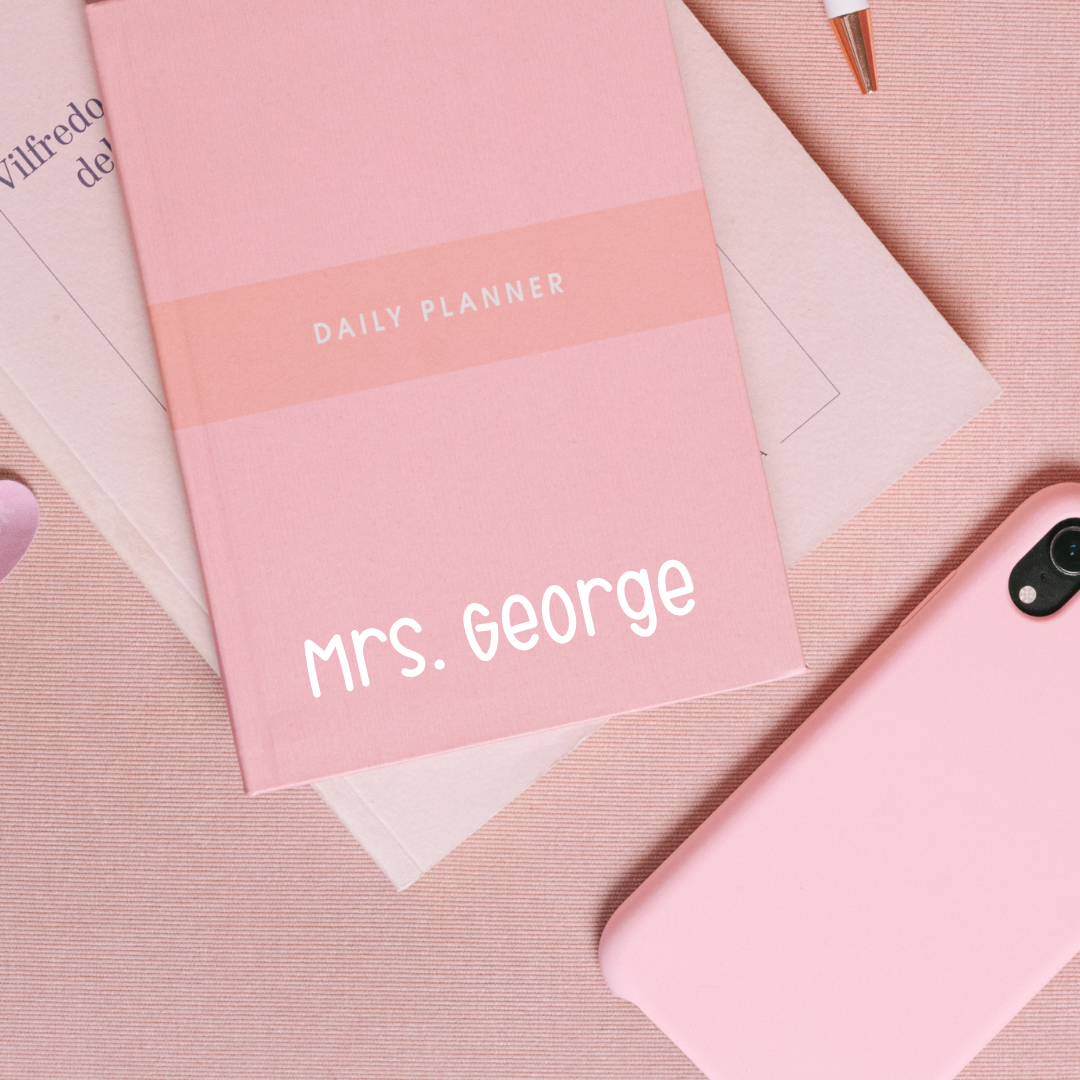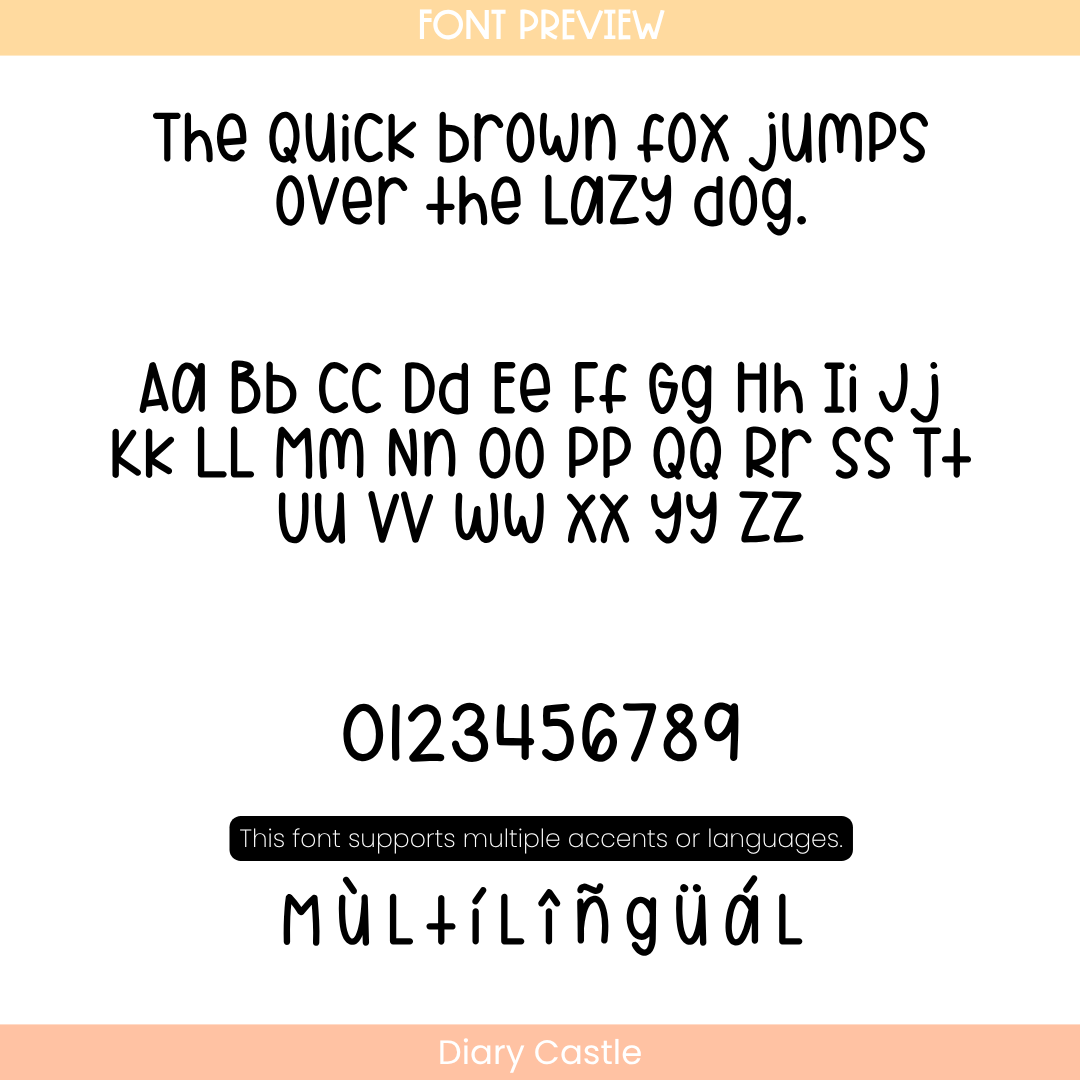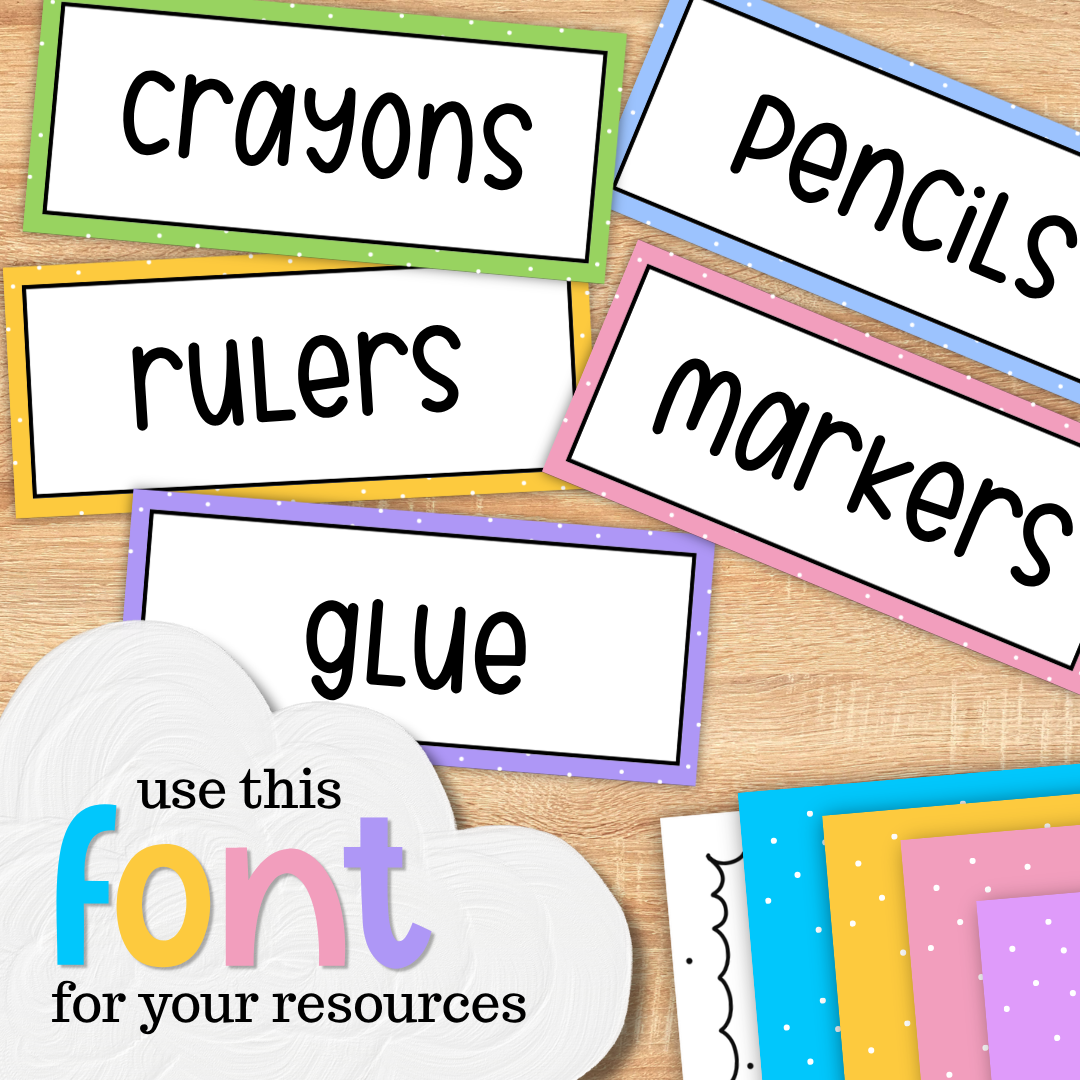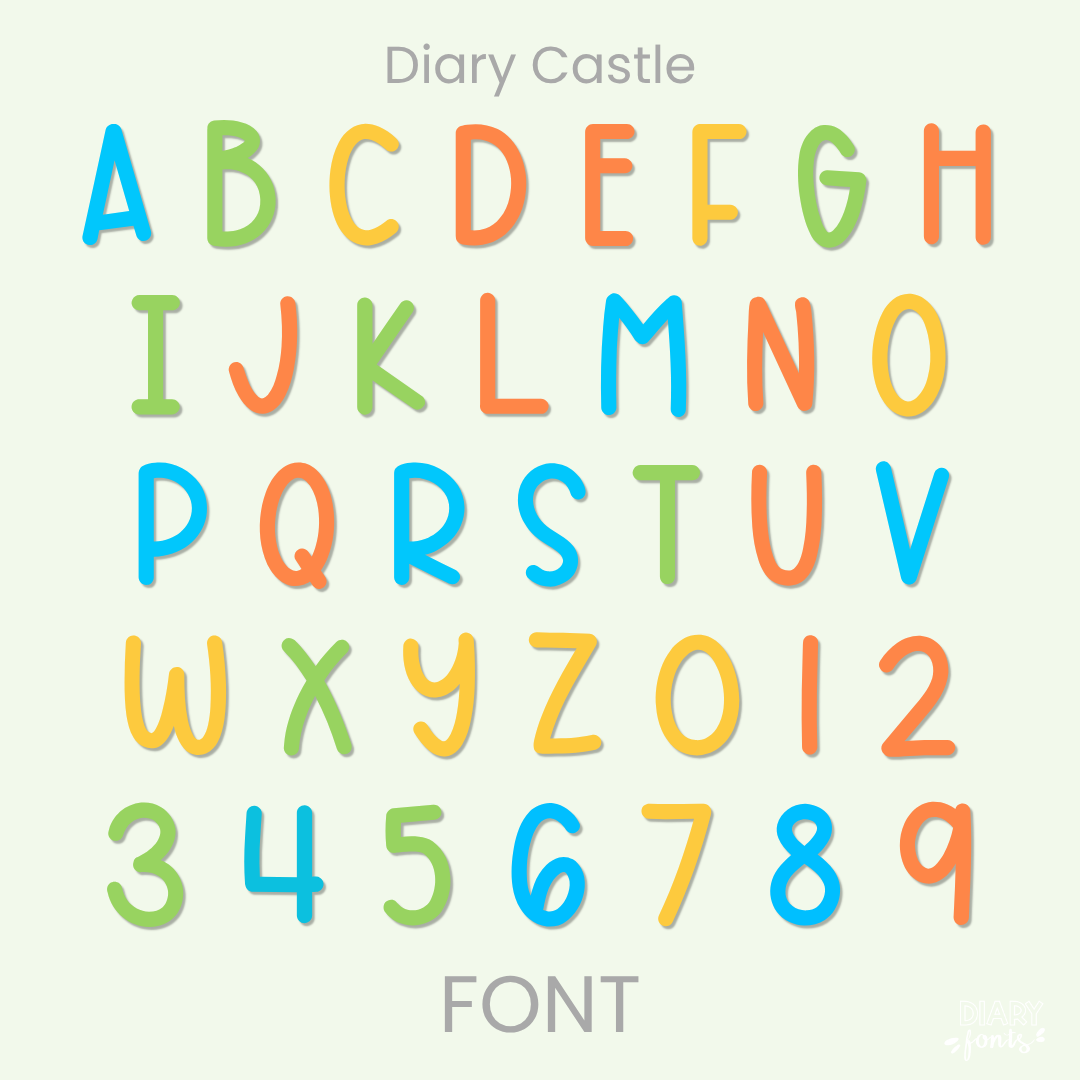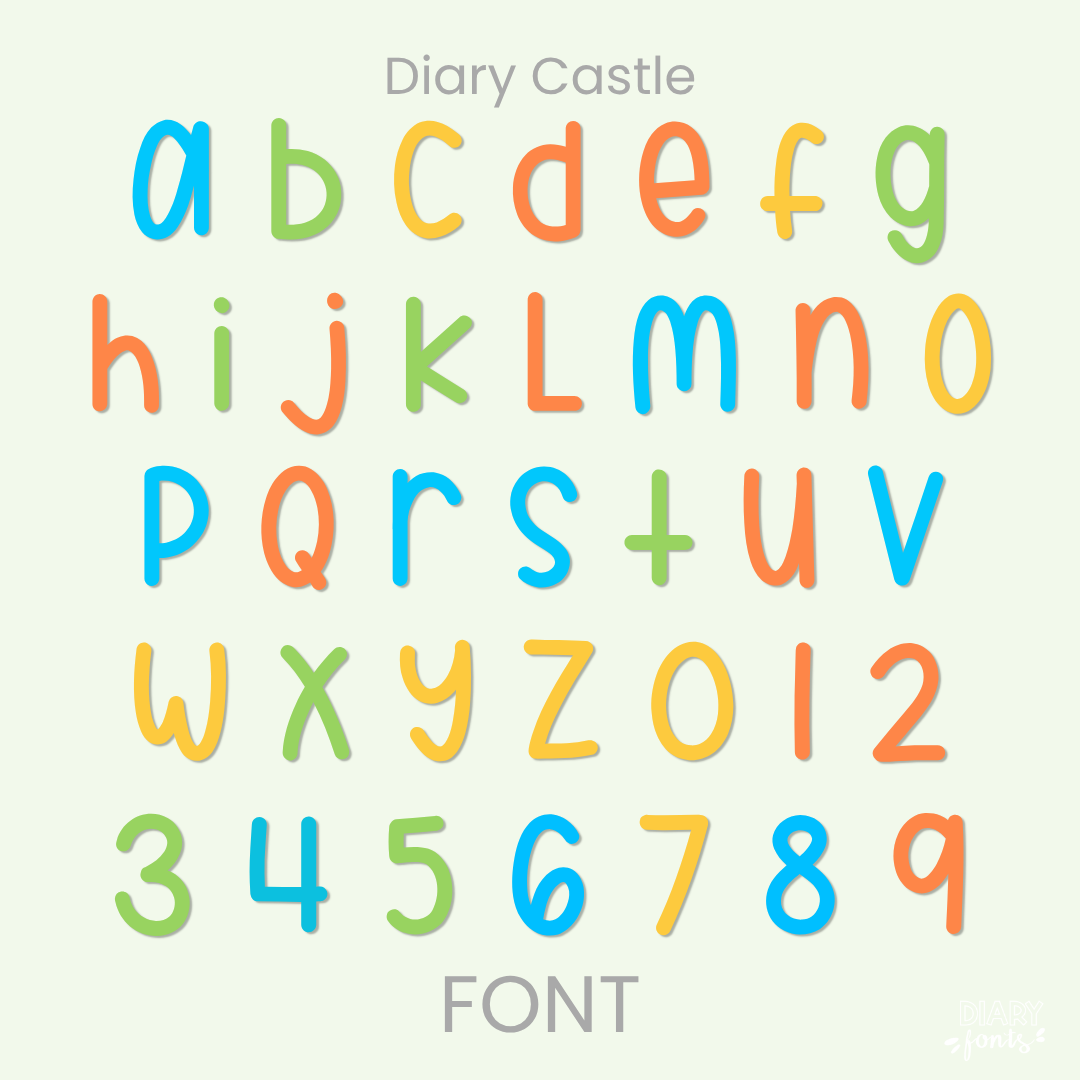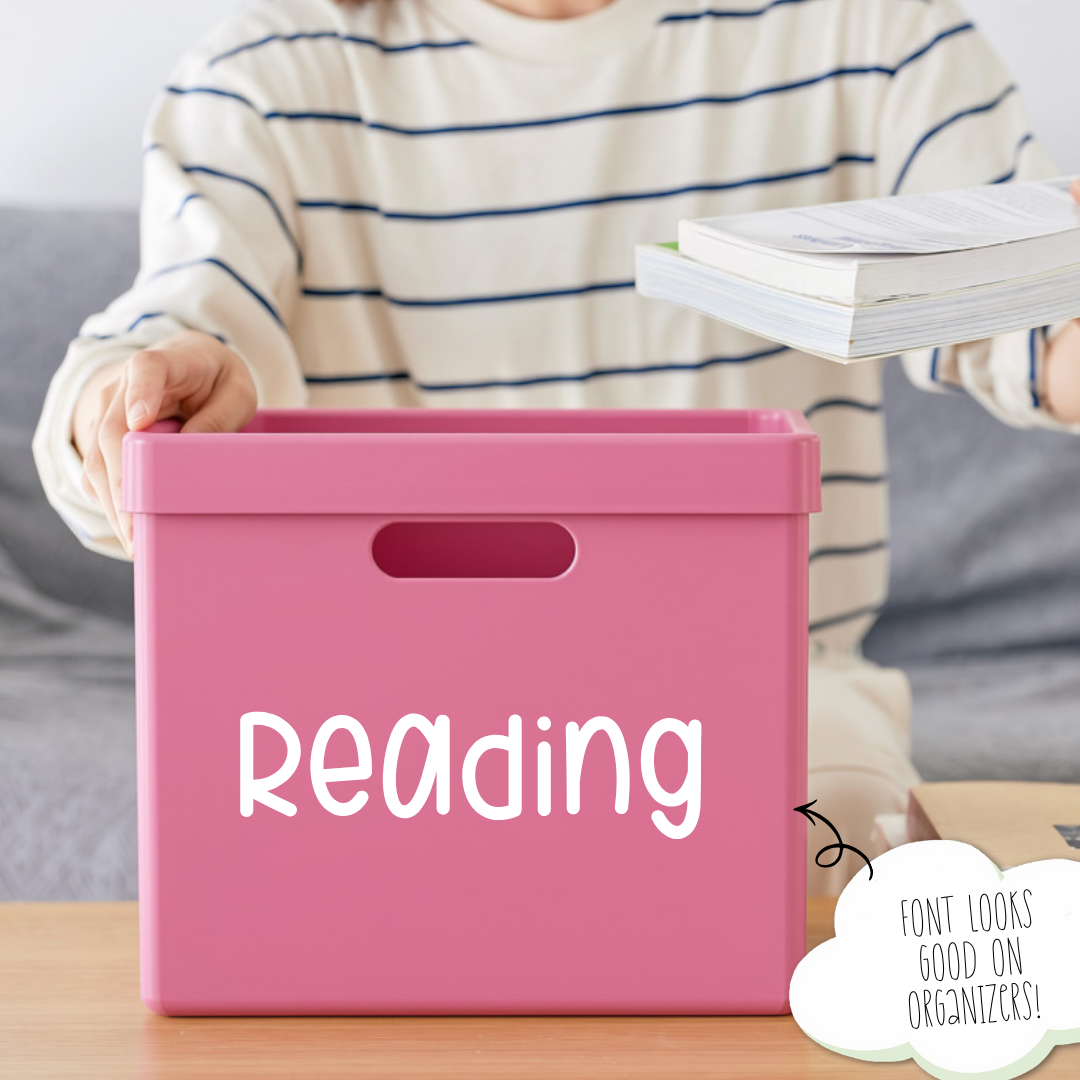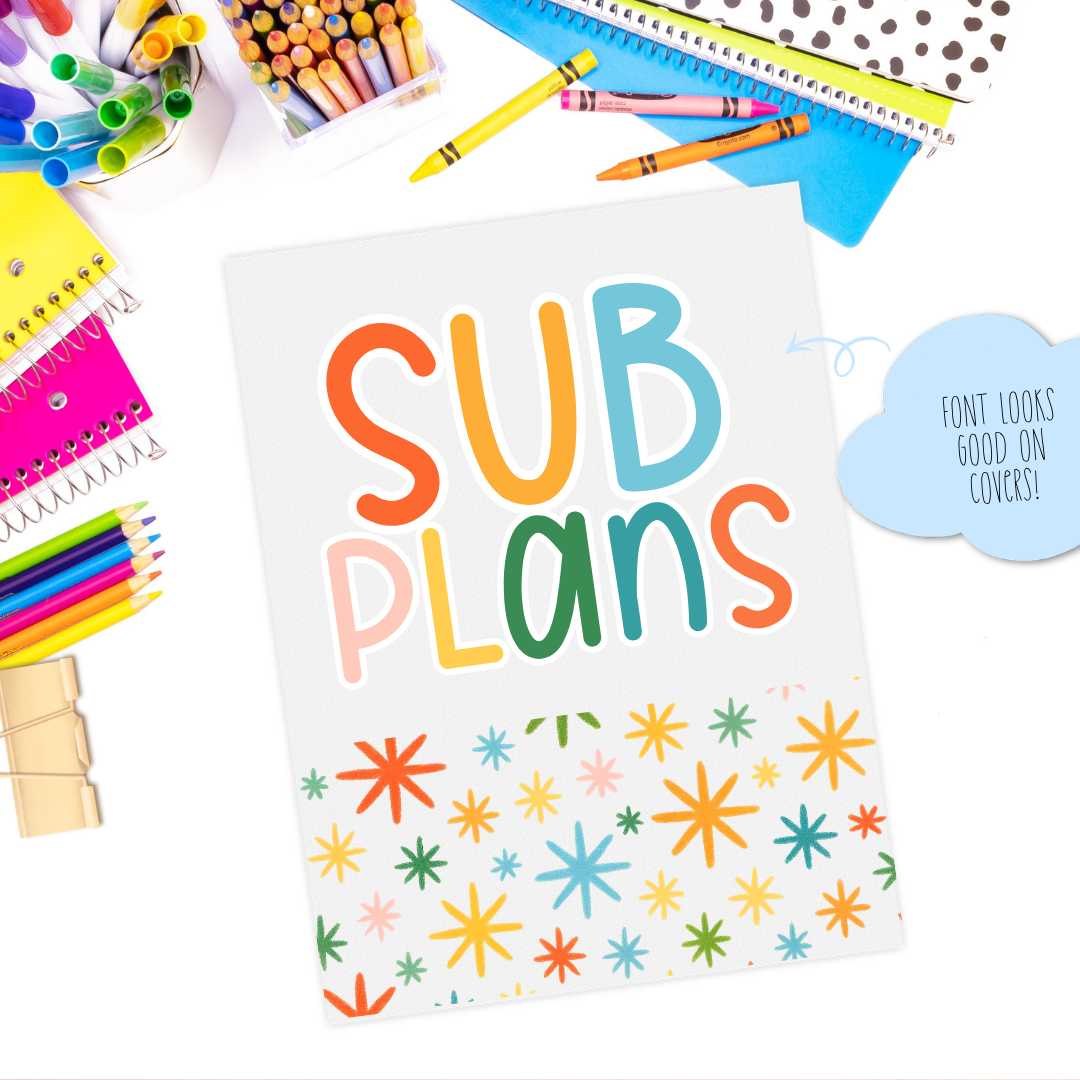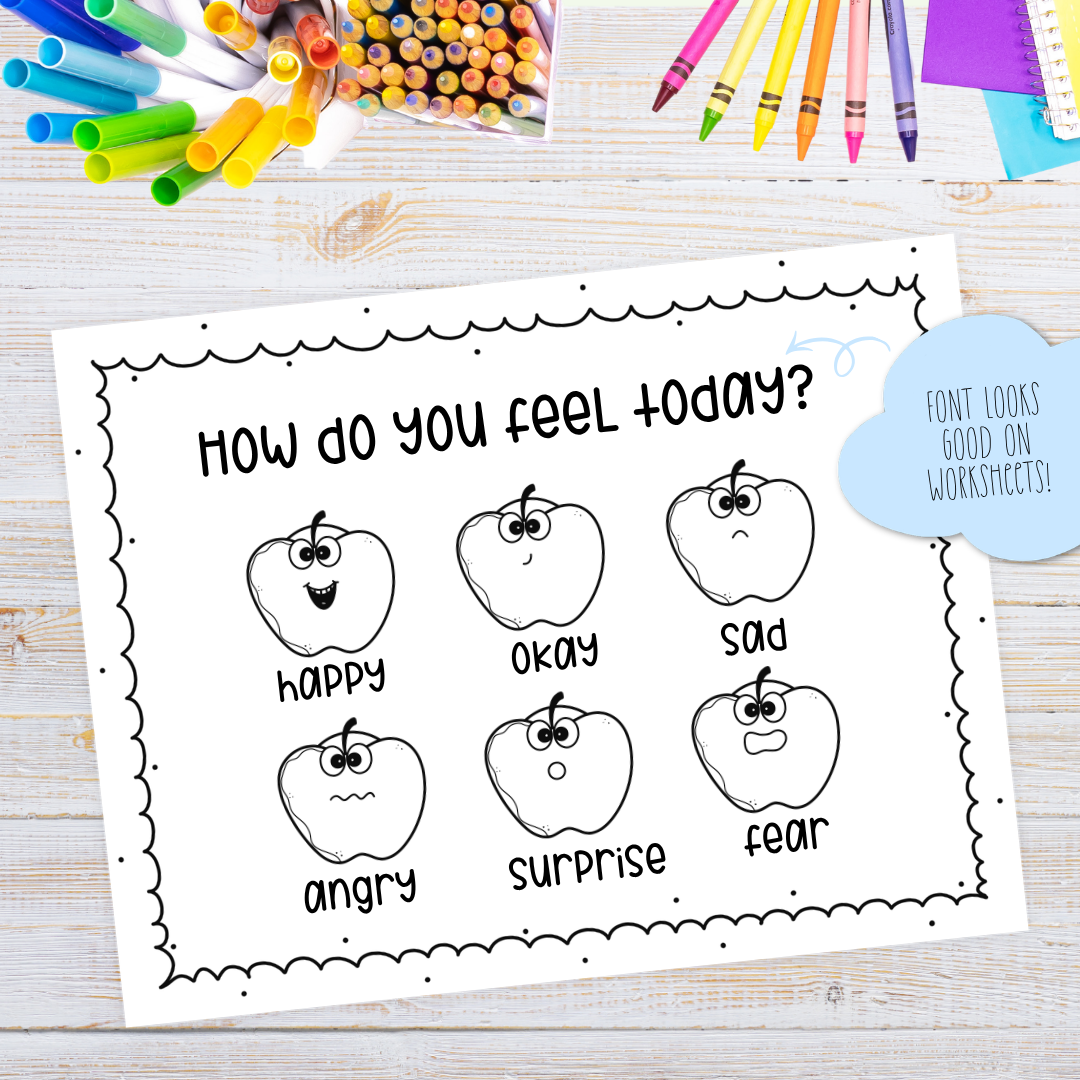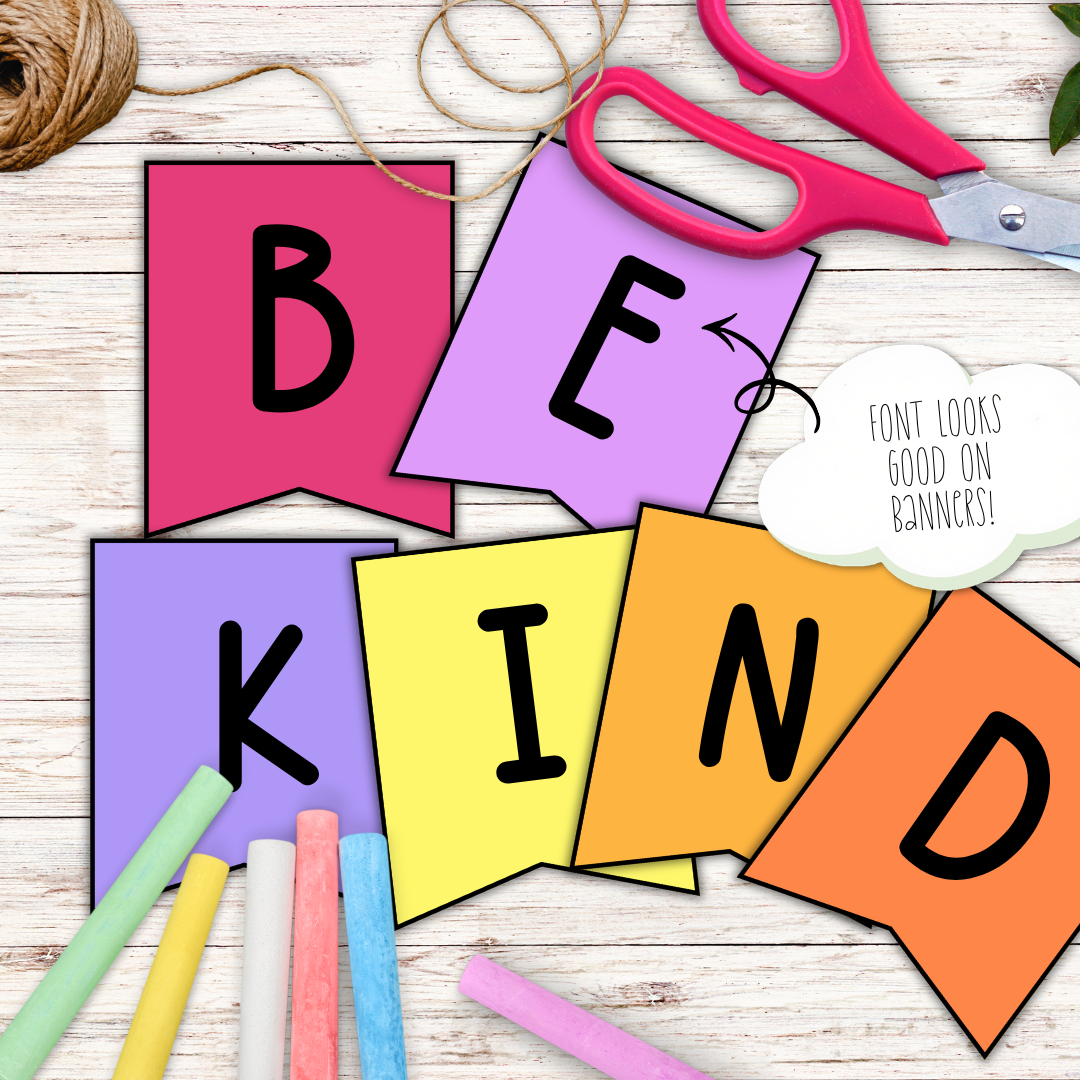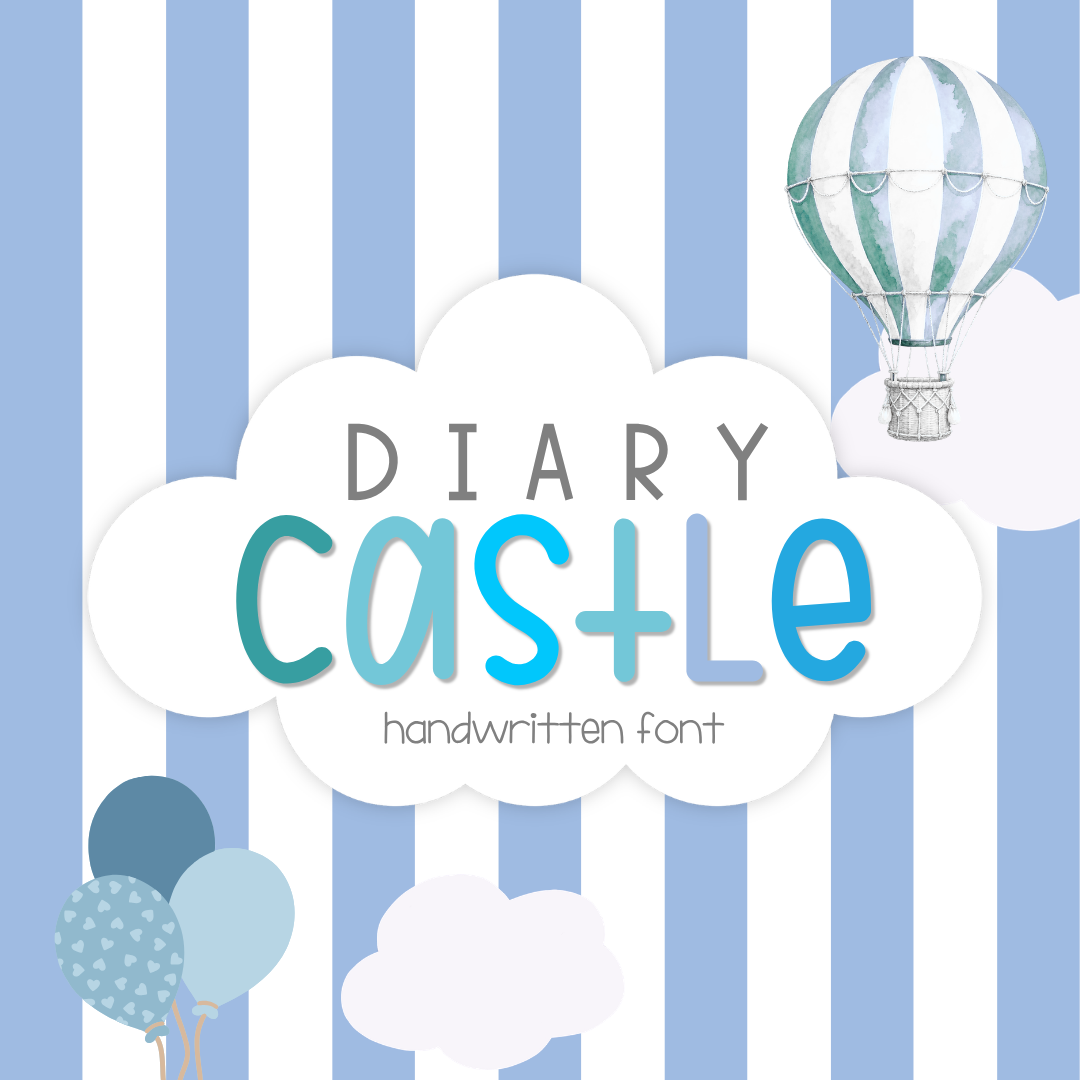
Diary Castle -Handwritten Font
Diary Castle is a playful, neat handwritten font designed to give classroom worksheets, morning slides, and teacher resources a friendly, easy-to-read look.
Looking for a clean, go-to print font that stays readable without losing its hand-drawn personality? Diary Castle combines neat, upright letterforms with subtle playful quirks—like tall lowercase letters and rounded strokes—to keep your teaching materials clear, organized, and fun.
The consistent stroke weight and generous letter spacing keep visual clutter to a minimum, making it ideal for classroom resources. Use it to type up daily reading passages, vocabulary cards, bulletin board banners, teacher planner headers, and storage labels.